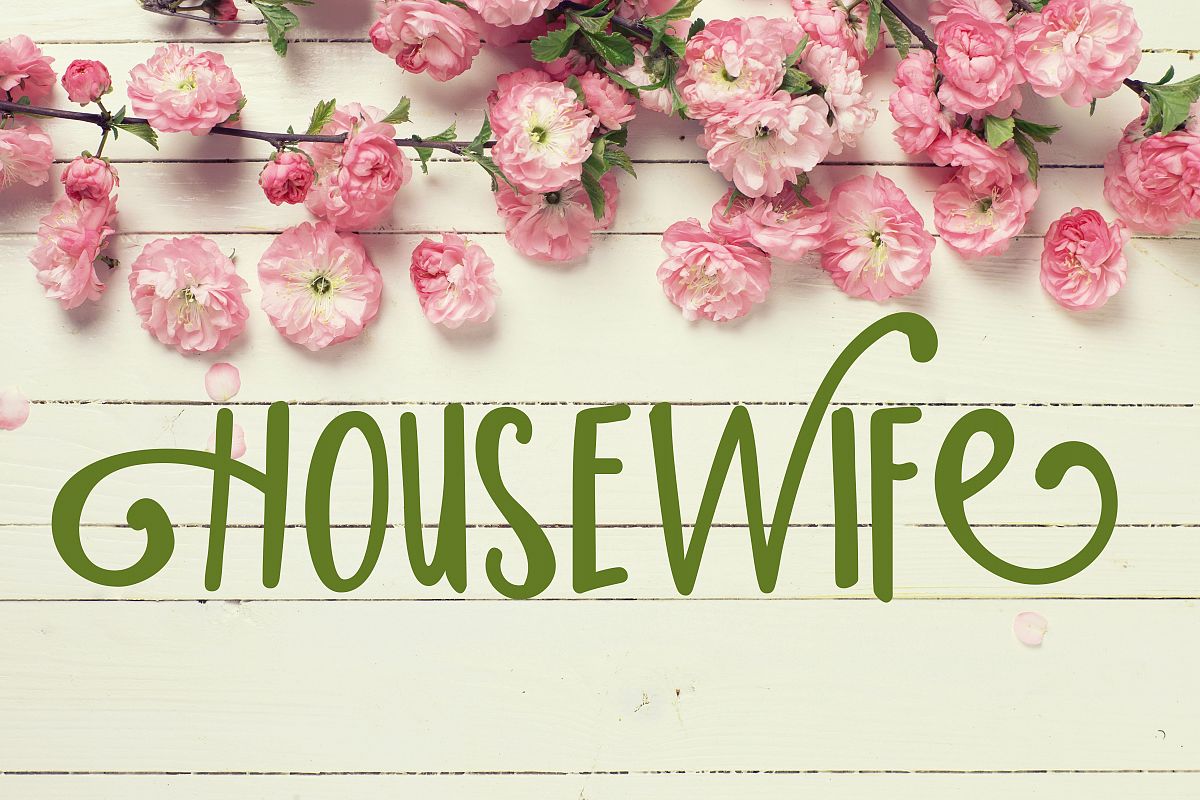
PN Housewife
This hip, but whimsical font is like getting two fonts in one. The uppercase is a more decorative case that works best to begin or end words. The lowercase is simplistic. We suggest typing largely in the lowercase but mixing in the uppercase here and there for an artistic and creative look. The sample was typed as the following - "HouseWifE"